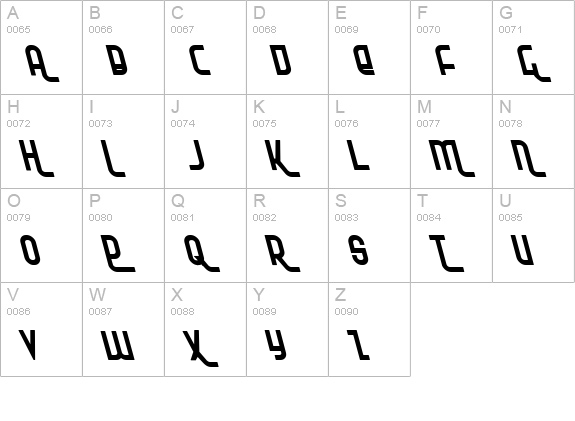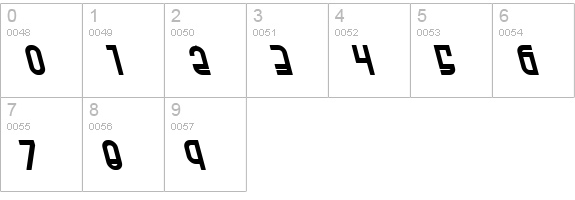
Ro'Ki'Kier Leftalic font is a modern and stylish typeface that exudes elegance and sophistication. With its sleek lines and unique design, this font is perfect for adding a touch of class to any project. The italicized style of Ro'Ki'Kier Leftalic font gives it a dynamic and eye-catching look that is sure to make your text stand out. What sets Ro'Ki'Kier Leftalic font apart is not only its striking appearance, but also the fact that it is available for free download at FontsMarket.com. This means that you can easily access this high-quality font and use it in your designs without any cost. Whether you're working on a branding project, a website design, or any other creative endeavor, Ro'Ki'Kier Leftalic font is a versatile and reliable choice that will elevate your work to the next level.